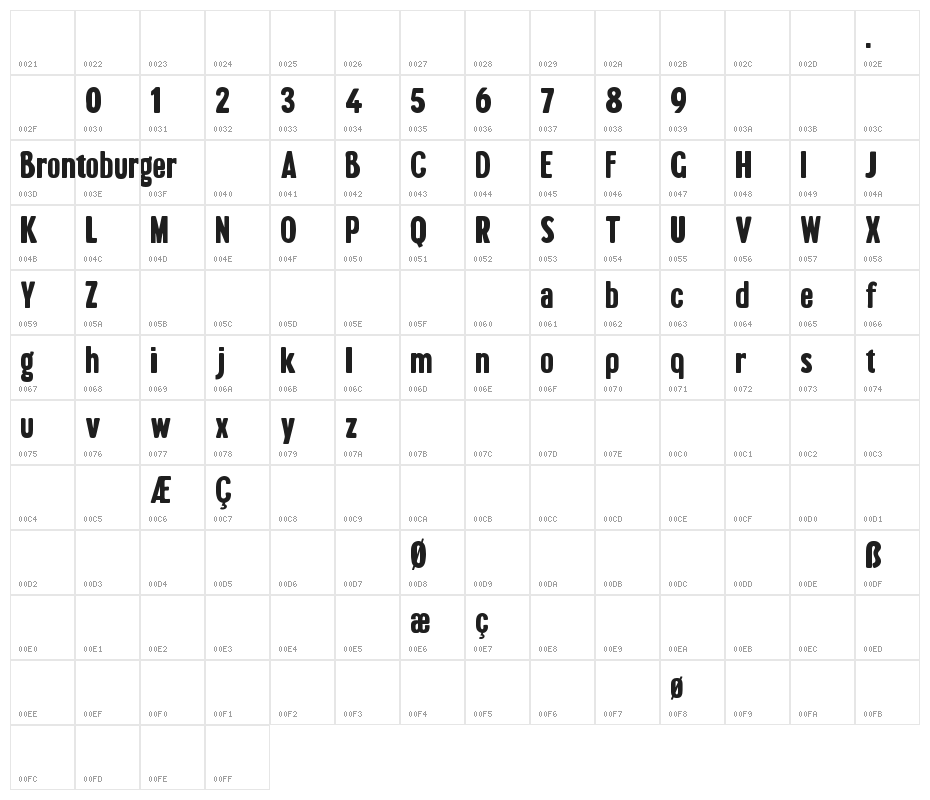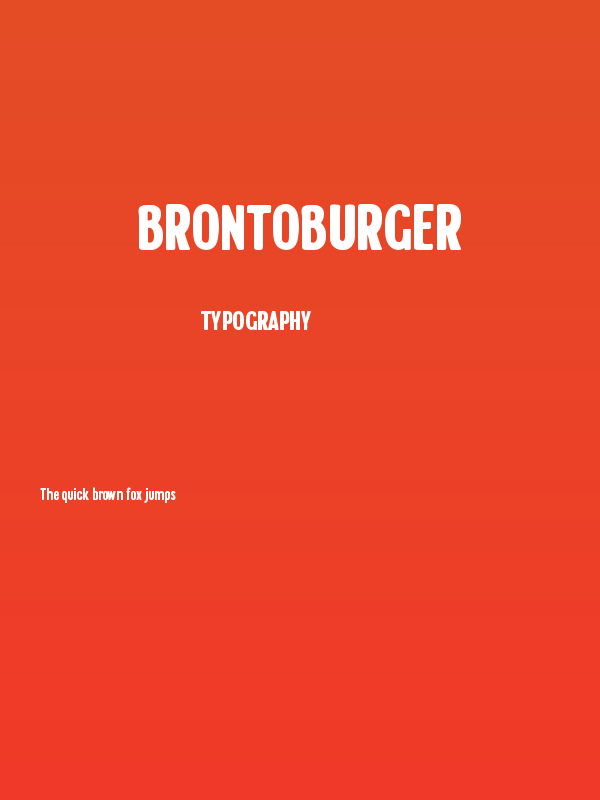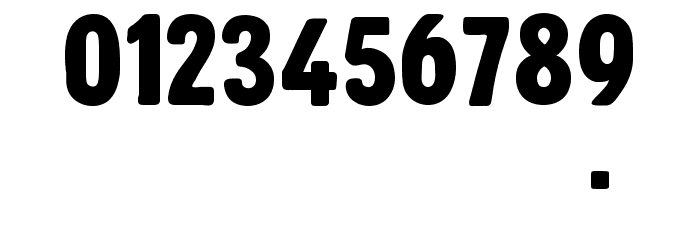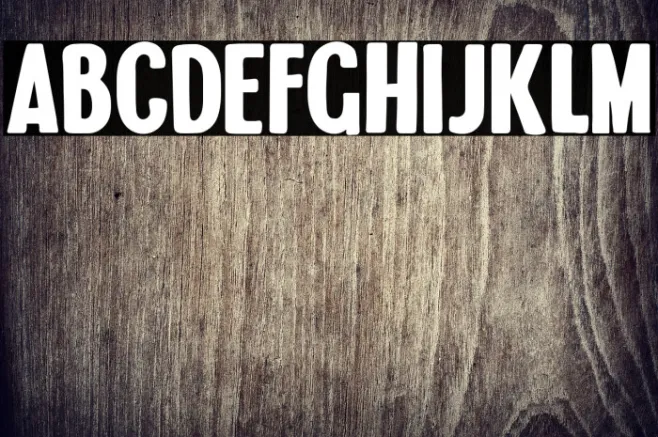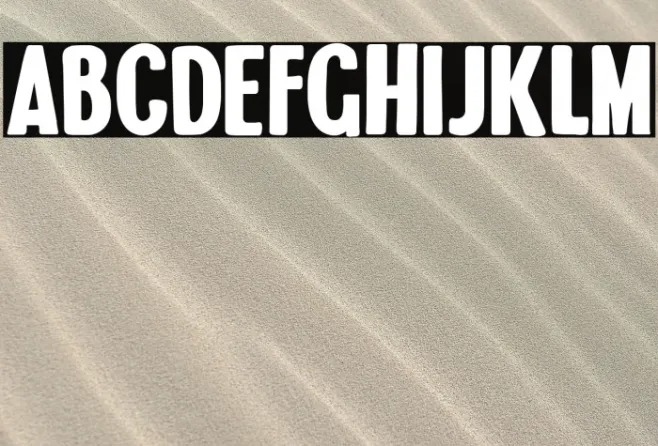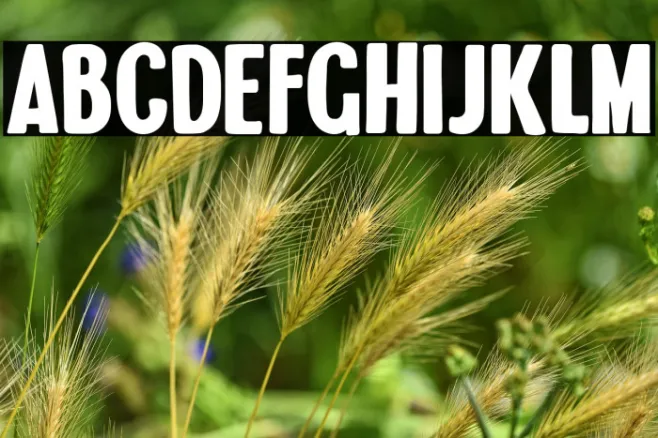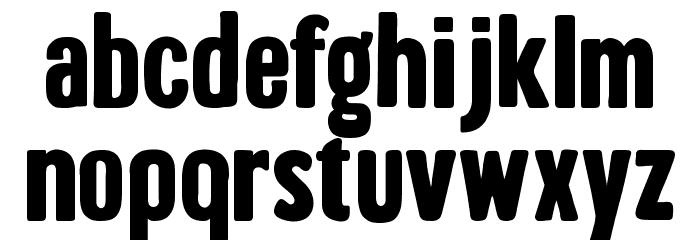
Brontoburger Font
Brontoburger Description
This font features bold, rounded characters with a strong presence, making it ideal for attention-grabbing designs. The uppercase letters are robust and slightly condensed, while the lowercase letters maintain a consistent weight, offering a harmonious balance. The numerals are clear and legible, with a uniform thickness that complements the overall style. The font's playful yet assertive appearance makes it suitable for a variety of creative projects. Its rounded edges and consistent stroke width give it a friendly and approachable feel, perfect for branding, headlines, and advertising materials.
| Proposed Projects | Ideal for branding, headlines, posters, and advertising materials. |